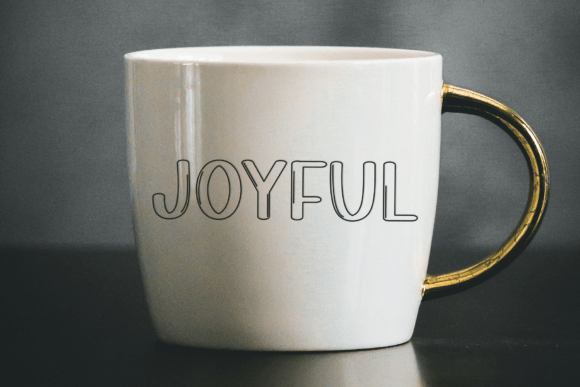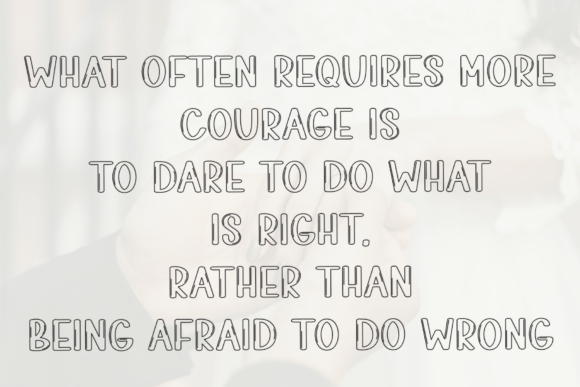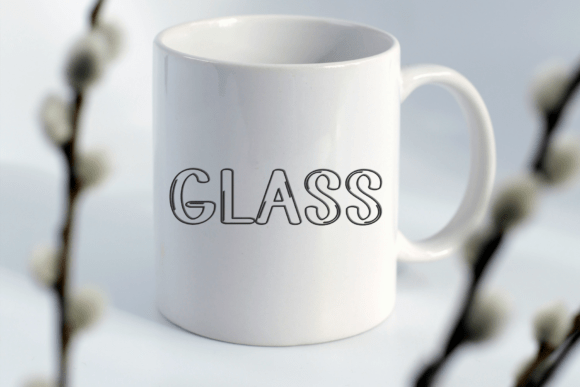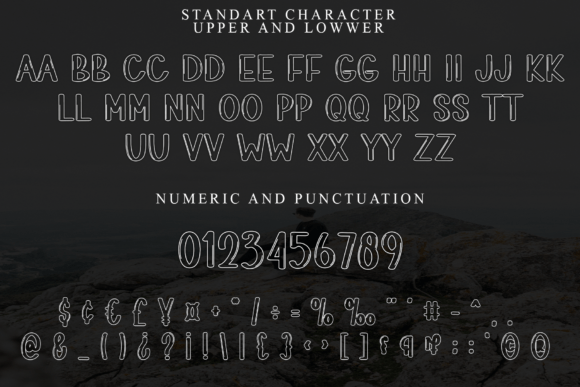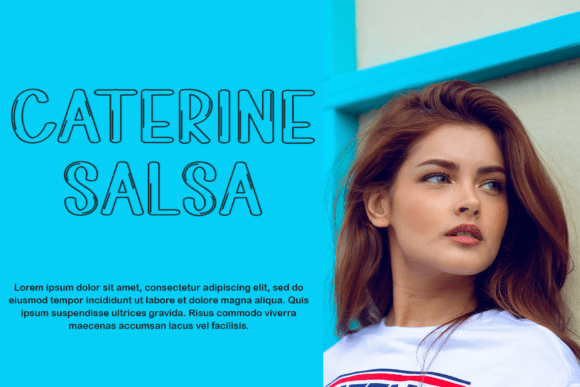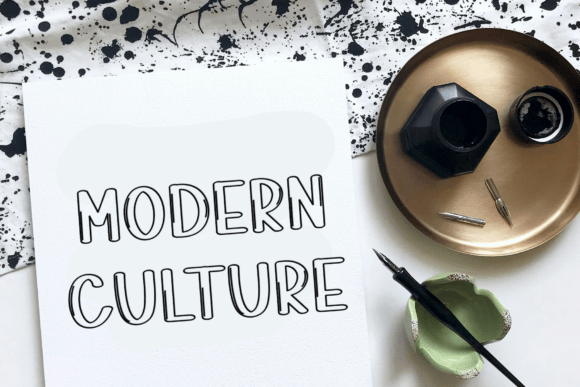
Bubble Custom Font: Elevate Your Designs with a Unique Touch
In the world of design, a font can make all the difference in creating a lasting impression. If you’re a designer, crafter, or creative looking for a distinctive and eye-catching font, look no further than Bubble Custom Font. This beautiful font is designed with a soft, unique touch that sets it apart from more traditional fonts. Its distinctive strokes give it a special character, making it meaningful and versatile for future use.
What Makes Bubble Custom Font Stand Out?
Bubble Custom Font boasts a range of features that make it perfect for design projects, crafts, and other creative works. With its various characters, this font is ideal for adding a personal touch to your designs. Whether you’re working on a logo, branding materials, or social media graphics, Bubble Custom Font is sure to make your designs stand out.
Key Features of Bubble Custom Font
- Unique and Eye-Catching Design: The font’s soft, rounded edges and distinctive strokes give it a special character that’s hard to find in other fonts.
- Versatile and Meaningful: With its various characters, Bubble Custom Font is perfect for a wide range of design projects, from crafts to branding materials.
- Ideal for Creative Projects: Whether you’re a designer, crafter, or artist, Bubble Custom Font is perfect for adding a personal touch to your work.
Benefits of Using Bubble Custom Font
So why choose Bubble Custom Font for your design projects? Here are just a few benefits of using this unique font:
- Enhance Your Designs: With its eye-catching design and distinctive strokes, Bubble Custom Font is sure to elevate your designs and make them more appealing to your audience.
- Stand Out from the Crowd: In a world of generic fonts, Bubble Custom Font offers a refreshing change of pace. Its unique design ensures that your designs will stand out from the crowd.
- Perfect for a Wide Range of Projects: From logos and branding materials to social media graphics and crafts, Bubble Custom Font is versatile enough to be used across a wide range of projects.
If you’re looking for a unique and eye-catching font to elevate your designs, look no further than Bubble Custom Font. With its soft, distinctive strokes and versatile design, this font is perfect for a wide range of creative projects. Whether you’re a designer, crafter, or artist, Bubble Custom Font is sure to make your designs stand out. So why wait? Download Bubble Custom Font today and start creating stunning designs that capture your audience’s attention.
Get Creative with Bubble Custom Font
Ready to take your designs to the next level? Here are some ideas to get you started:
- Create a stunning logo or branding materials for your business
- Design eye-catching social media graphics that capture your audience’s attention
- Add a personal touch to your crafts and DIY projects
- Experiment with different font styles and combinations to create something truly unique
With Bubble Custom Font, the possibilities are endless. So why wait? Download the font today and start creating stunning designs that showcase your creativity and style.